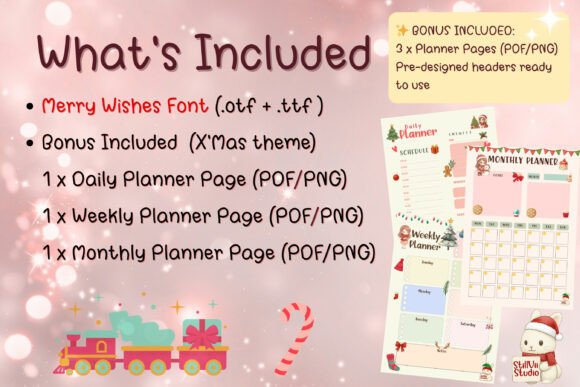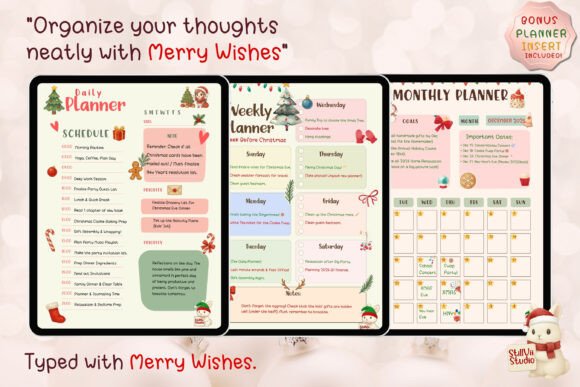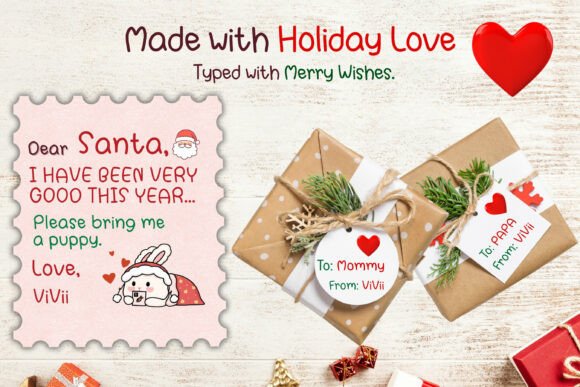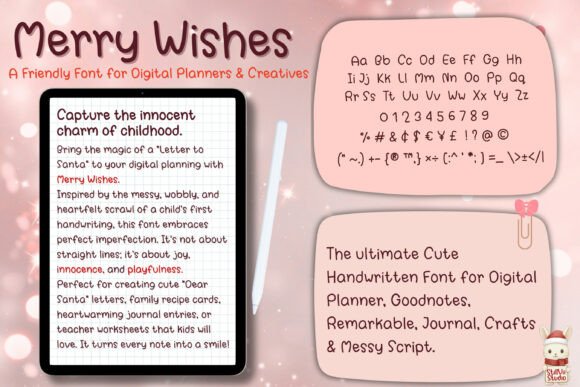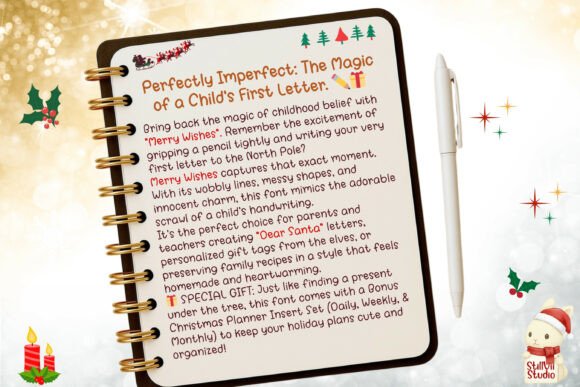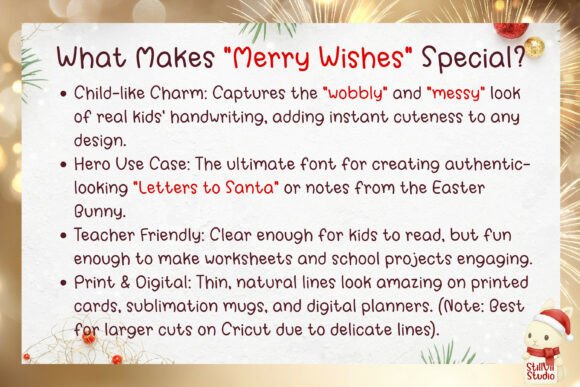
Introduction to Merry Wishes Font
Do you remember the excitement of writing your first letter to Santa Claus? The thrill of imagining the jolly old man’s response, the anticipation of waking up on Christmas morning to find your gifts under the tree. It’s a moment that sparks childhood wonder and magic. And what better way to capture that essence than with the perfect font?
Enter the Merry Wishes Font, a charming and playful design that embodies the spirit of childhood innocence. This delightful font is not just a creative project, but a design resource that adds a touch of whimsy to any project. With its wobbly lines, messy shapes, and transparent background, Merry Wishes Font is the perfect choice for designers looking to add a high-quality, free download to their creative portfolio.
Whether you’re a parent creating personalized gift tags, a teacher making fun resources, or a designer looking for a unique font to elevate your project, Merry Wishes Font is the perfect choice. Its high-quality design and transparent background make it ideal for printing and digital use, making it a valuable resource for any creative project.
Key Features of Merry Wishes Font
- High-quality font design suitable for creative projects, including holiday cards, gift tags, and other festive designs.
- Perfect for designers seeking a unique and festive font to enhance their creative project, ideal for the holiday season.
Honest Review: Merry Wishes Font
As a designer, I’m always on the lookout for unique and high-quality design resources to enhance my creative projects. Recently, I stumbled upon the Merry Wishes Font, which has been a delightful addition to my design arsenal. ✨
What I love about this font is its elegant and festive feel, perfect for holiday-themed projects or any occasion that calls for a touch of whimsy. The font is available for free download, making it an excellent design resource for designers on a budget.
- High-quality design with crisp lines and beautiful typography
- Perfect for creating eye-catching graphics, posters, and invitations
While the Merry Wishes Font is an excellent addition to any designer’s library, there are a few limitations to consider:
- Not as versatile as some other fonts in terms of style and genre
Overall, I’m thoroughly impressed with the Merry Wishes Font and would highly recommend it to designers looking for a unique and high-quality design resource for their creative projects.
The Merry Wishes Font is commonly used for:
– Holiday cards and invitations
– Party decorations and flyers
– Social media graphics and posts
– Gift tags and labels